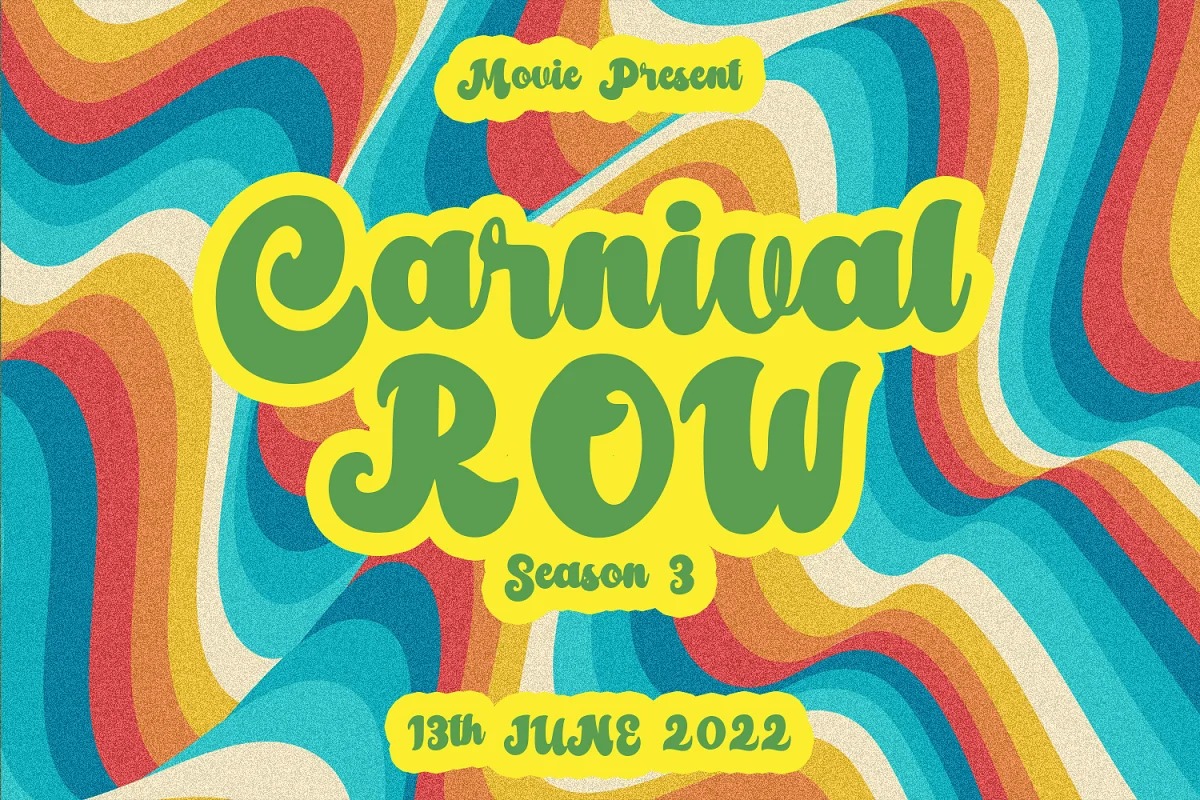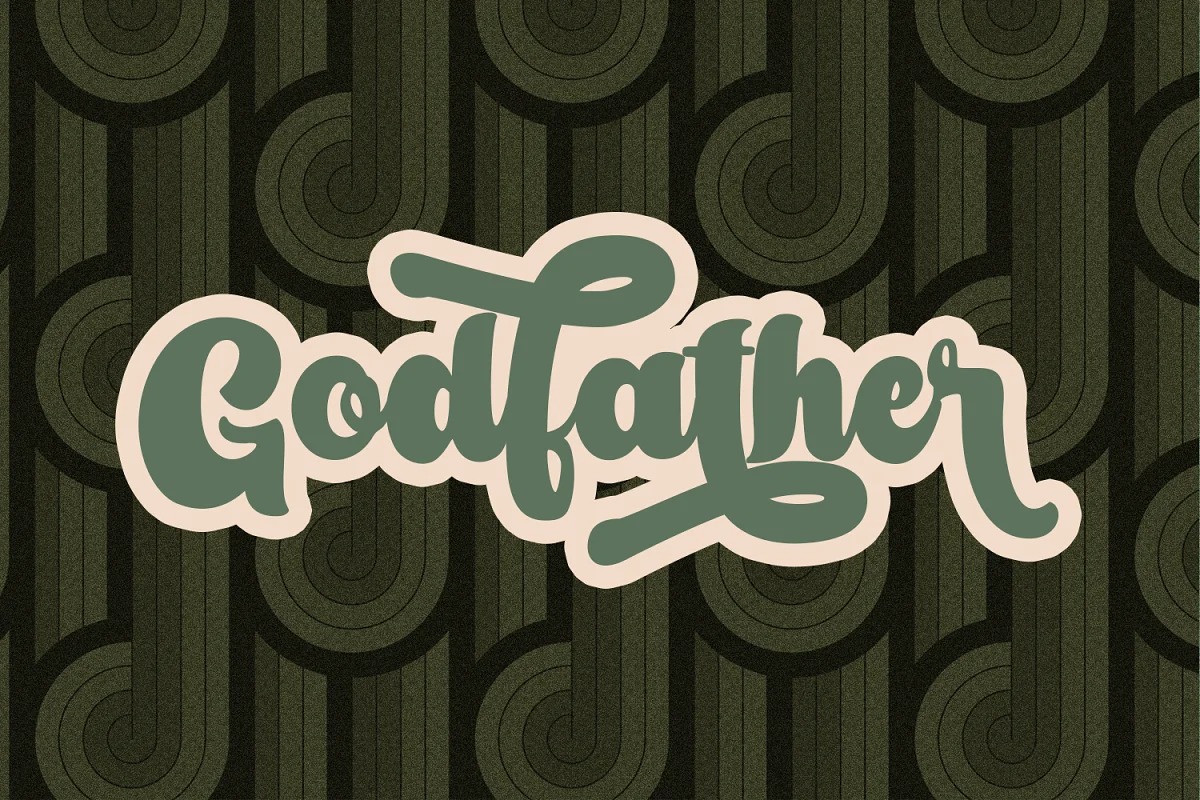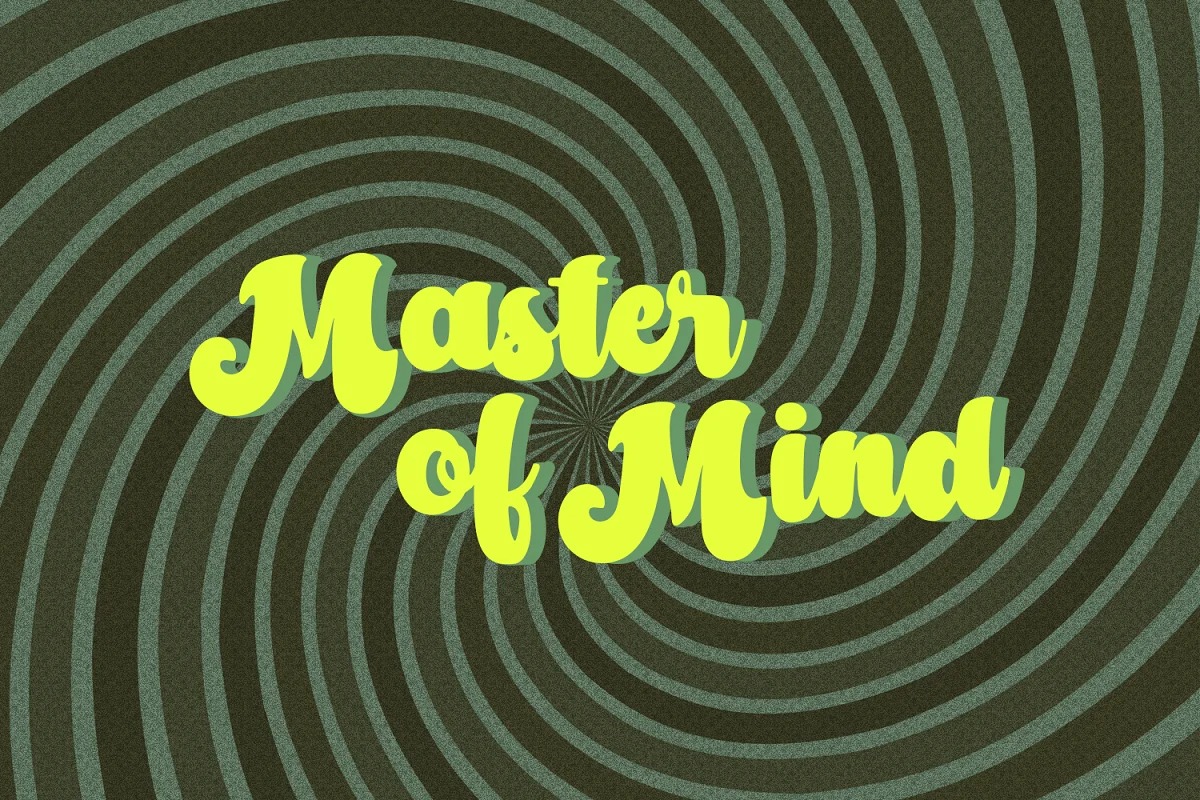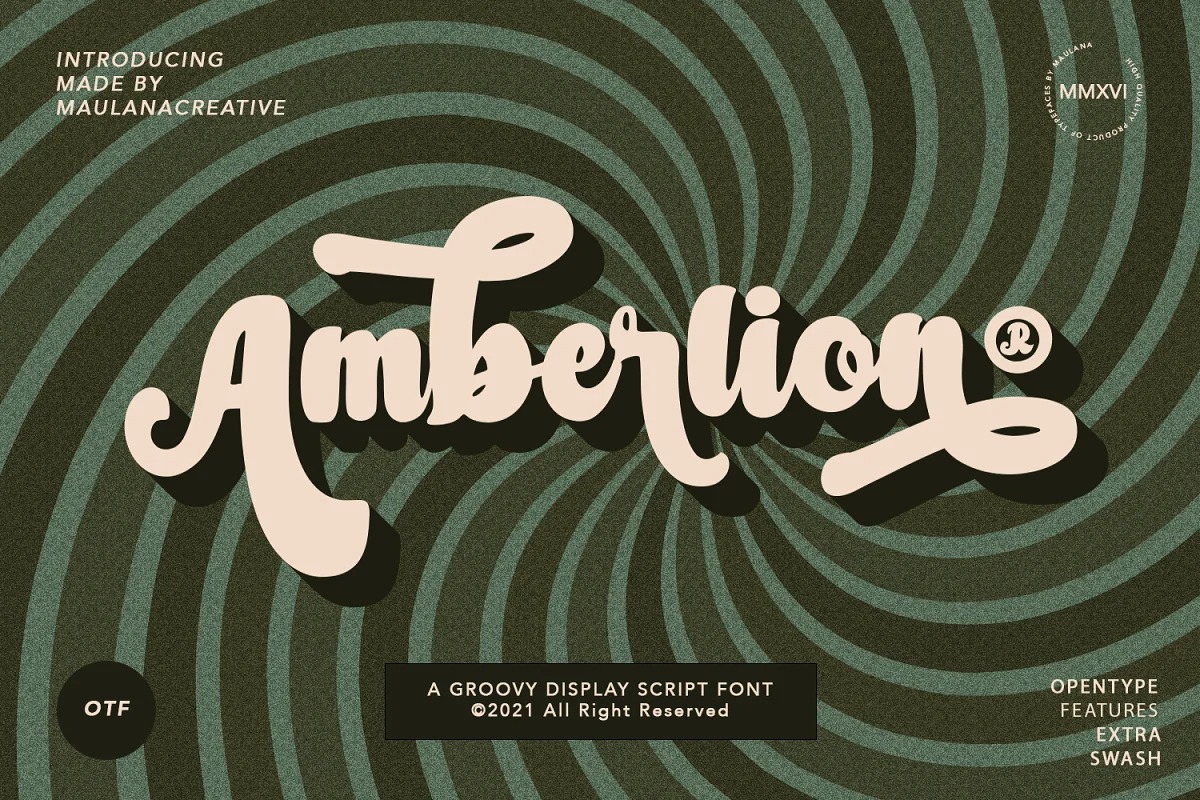
Amberlion Font
Amberlion Script Font is retro script style of the 70s typeface. It’s comes with open type features like style alternatives, style sets, contextual alternatives & binders. Amberlion script font support multilingual more than 100+ language. This font is good for logo design, Social media, Movie Titles, Books Titles, a short text even a long text letter and good for your secondary text font with sans or serif. Make a stunning work with Amberlion font.